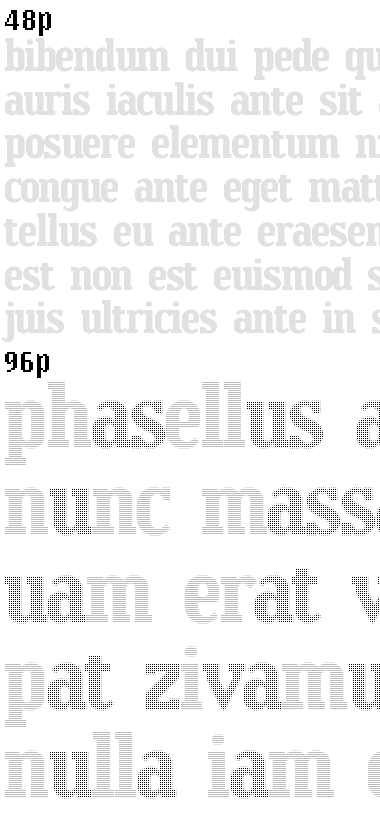
• This is a derivative work of Elspeth LC. Filter: both horizontal and vertical brick size are set to 0.5. Recommended font sizes: 24, 48, 72, 96, 144, 192, 240. Other sizes result in different moiré patterns as the bricks partially overlap the screen pixels. Kerning is not perfect, some minor ovelapping may occur.
The following screenshots were taken from a MS Word document at 100%. Setting the font size to 48 results in solid grey color (hence the second name). At sizes 24, 96, 144, however, a special effect appears: some letters are rendered in horizontal stripes, others in a checkered pattern. It is important to
note that any particular letter shows always the same pattern: striped or checkered. In other words, the pattern is letter specific. Furthermore, the two patterns are displayed in two significantly different shades of grey, yet the text color was the same: black.
The effect is even more striking when the text is selected in MS Word: a color inversion. Striped letters look a bit dimmed, checkered letters stand out. If we change the text color to blue (any other color would do), the two different patterns appear in different hues: letters made of stripes are ligh blue, whereas checkered letters are purple - a clear color shift. This phenomenon is known from biology and organic chemistry as metachromasia.
Any explanation?
What's probably happening is a phenomenon called moire. Artifacts are created when two grids are laid on top of each other. In this case one of the grids is in your font; the other one is the grid MSWord uses to generate colours.
Scanner operators get the same phenomenon when they have to re-scan material from magazines. The screen lines from the printed material interact with the scan grid to create "measles". Process printing minimises it by making sure each of the screens for cyan, magenta, yellow and black in a four-colour image are laid at specific angles to create a rosette pattern that the eye doesn't detect. Get a loupe and look at some four colour images in a magazine.
There's a process called stochastic printing that gets round the problem altogether by using screens that appear to have no pattern. Stochastic images, when properly printed, look absolutely wonderful.
A screen shot required quite a bit of suction to sandwich the screen and paper film to the glass with no air pockets. The whole thing was like a giant vacuum cleaner.
If you had exposed the image for the right length of time at the right focus and aperture you were rewarded with a nice crisp image with all the grey values converted to dots. But you also had to do a "bounce" and "flash", which involved removing the screen without disturbing the paper film and exposing again. Bounce pulled dot out of the white areas; flash (putting a piece of white paper over the artwork and exposing for a third time) put pindots into the black areas.
Through trial and error I got quite good at it. It was an entirely mechanical process, and part of me hankers for those days. But only part of me. Photoshop wasn't even thought of yet because Apple hadn't been born.
God I'm old.
@intaglio: Thank you very much for your elaborate explanation. Your shared knowledge is highly appreciated here, and added much value to this thread.
I was aware of the moire phenomenon, but didn't know much about it. I am always happy to learn new things.
This effect works on any standard LCD screens. It works with word processors, font viewers, probably with browsers, and most importantly with Flash. In Flash the text should be positioned over whole pixels, and moved by whole pixels when animated, not fractions.